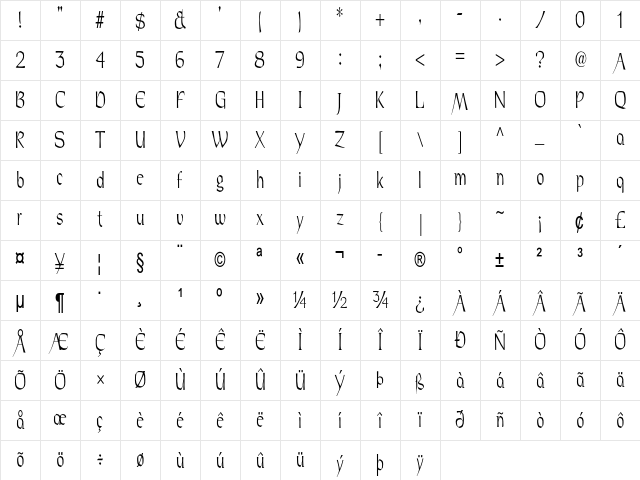
Lampiere Condensed Regular
Style: Condensed Regular
Lampiere Family
Lampiere Condensed Regular
Design Context for Lampiere
Lampiere is a composed and adaptable typeface that performs quietly and consistently across a wide range of design contexts. Its narrow stance lets it pack a punch even in space-constrained designs.